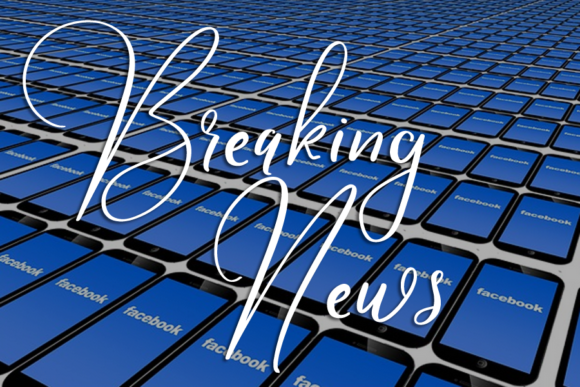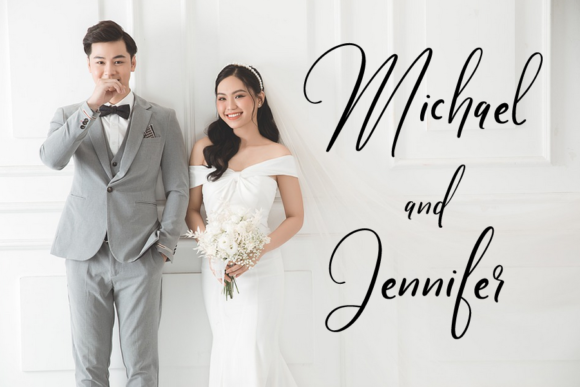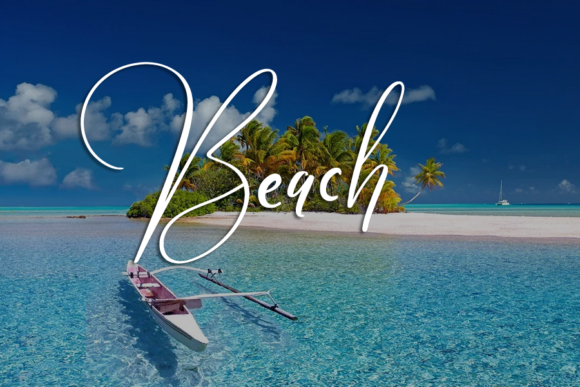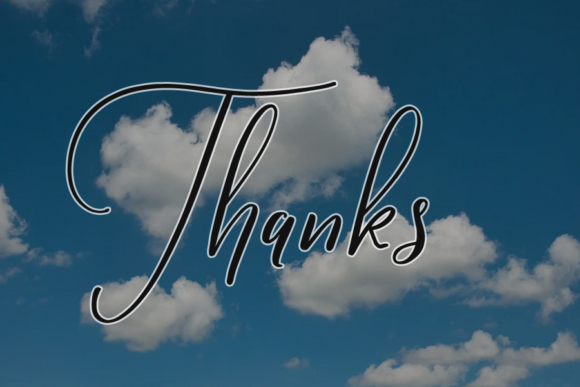
Biscuat Font: Elevate Your Design with Whimsical Elegance
Are you looking for a font that adds a touch of luxury and playfulness to your design projects? Look no further than the Biscuat Font! This sweet, whimsical, flowing, and thin script font is perfect for designers and crafters who want to create stunning visuals that capture the imagination.
What Makes Biscuat Font Special?
Biscuat Font is a unique and elegant script font that features characters that dance along the baseline, creating a sense of movement and fluidity. Its thin and flowing lines give it a luxurious feel, making it perfect for high-end designs, branding, and marketing materials. Whether you’re creating a logo, invitation, or social media graphic, Biscuat Font is sure to add a touch of sophistication and whimsy.
Key Features of Biscuat Font
• Sweet and Whimsical: Biscuat Font has a playful and charming personality that will add a touch of magic to your designs.
• Flowing and Thin: The font’s thin lines and flowing curves create a sense of elegance and sophistication.
• Dancing Characters: The characters in Biscuat Font dance along the baseline, creating a sense of movement and energy.
• Luxury Spark: This font is perfect for designers who want to add a touch of luxury and high-end style to their designs.
Biscuat Font is a versatile font that can be used for a wide range of design projects, including:
• Branding and Logo Design: Use Biscuat Font to create a unique and memorable logo that reflects your brand’s personality.
• Invitations and Stationery: Add a touch of elegance and whimsy to your invitations, greeting cards, and stationery.
• Social Media Graphics: Use Biscuat Font to create stunning social media graphics that capture the attention of your audience.
• Packaging Design: Add a touch of luxury and sophistication to your packaging design with Biscuat Font.
Tips for Using Biscuat Font
Here are some tips for getting the most out of Biscuat Font:
• Use it as a Headline Font: Biscuat Font is perfect for headlines and titles, where its elegant and whimsical personality can shine.
• Pair it with a Simple Font: Pair Biscuat Font with a simple font to create a striking contrast and add visual interest to your design.
• Experiment with Colors: Biscuat Font looks stunning in a range of colors, from bold and bright to soft and pastel.
Biscuat Font is a unique and elegant script font that adds a touch of luxury and whimsy to any design project. Its sweet and playful personality, flowing lines, and dancing characters make it perfect for designers and crafters who want to create stunning visuals that capture the imagination. Whether you’re creating a logo, invitation, or social media graphic, Biscuat Font is sure to elevate your design and add a touch of sophistication.